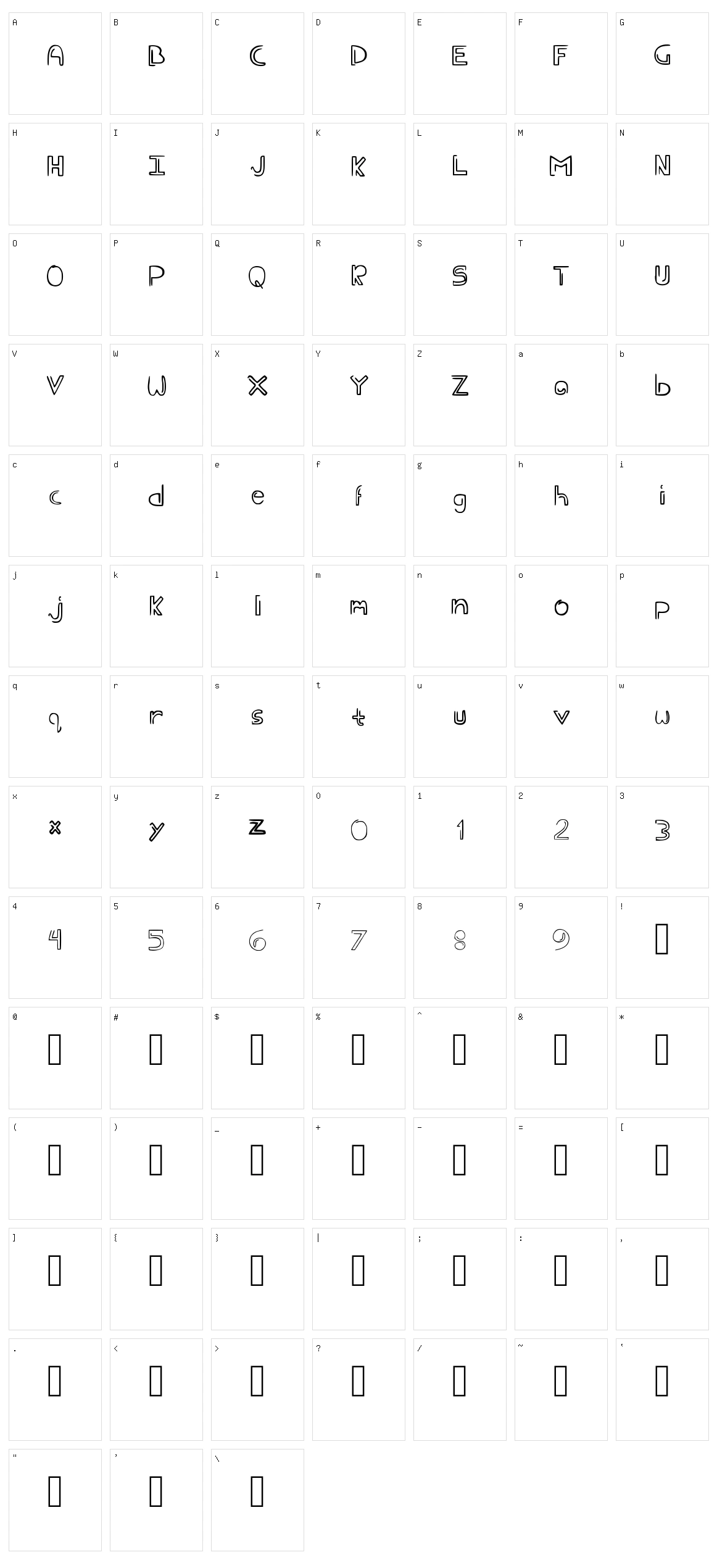
The free font Eder is carefully designed by Janica Alexi Eder, showcasing a thoughtful balance of creativity and usability and falls under the Cartoon font style. When you download the ZIP file, it contains only 12.23 KB of font files, making it lightweight and quick to download. Please review the license details below to understand permitted usage and distribution rights. If license information is not available, we recommend using this font for personal projects only or contacting the author directly for commercial usage permissions.